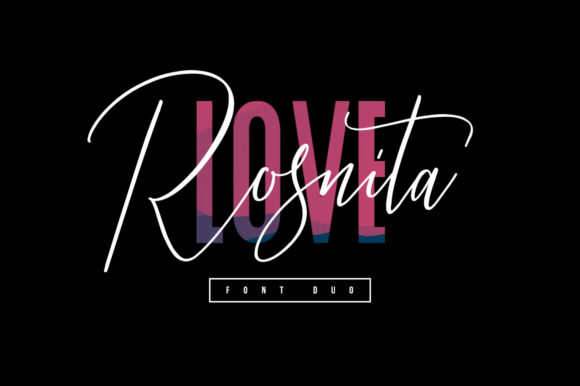
Embark on a captivating typographic journey with Love Rosnita Duo Font, a harmonious blend of script and sans-serif fonts. This enchanting duo is meticulously crafted to evoke the rhythm of music and dance, igniting your designs with a lively and captivating spirit.
With Love Rosnita's whimsical script, your words will pirouette across the page, each letter a graceful flourish that captures the essence of musicality. Its fluid lines and playful curves mimic the sway of a dancer, adding a touch of elegance and charm to any project.
Complementing the script's graceful allure, the sans-serif font exudes a contemporary edge, providing a solid foundation for your designs. Its clean lines and crisp angles create a harmonious balance, ensuring that your message remains clear and impactful.
Together, Love Rosnita's script and sans-serif fonts form a dynamic partnership, enabling you to express your creativity with limitless possibilities. Capture the essence of a love song, design stunning posters for musical events, or add a touch of musical flair to your social media posts. The versatility of this duo is truly remarkable.
Indulge in the artistry of Love Rosnita Duo and let your designs resonate with a symphony of style and grace. Its enchanting combination of script and sans-serif fonts will elevate your creations to new heights, leaving a lasting impression on all who encounter them.